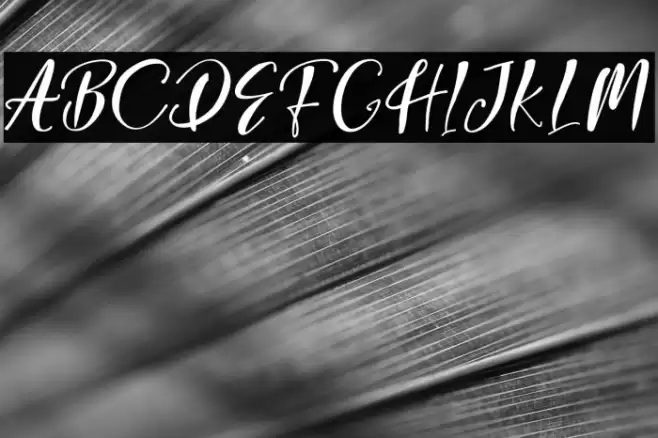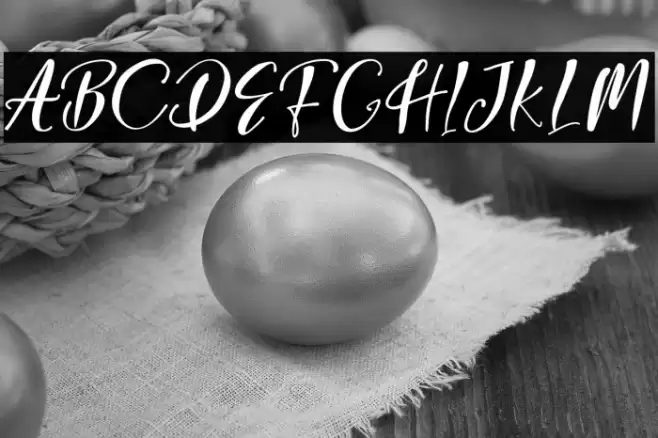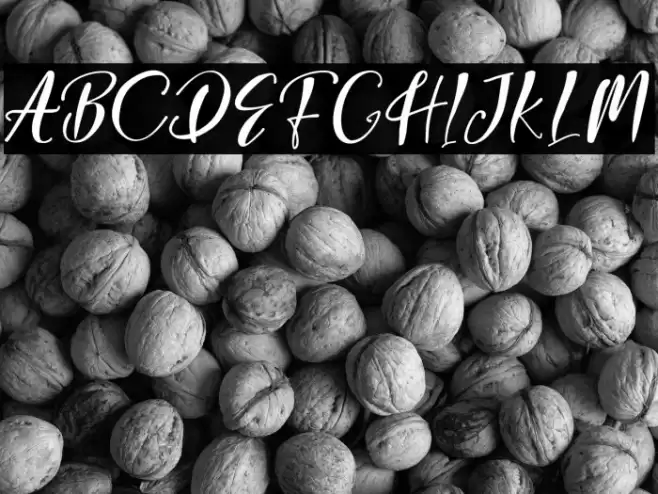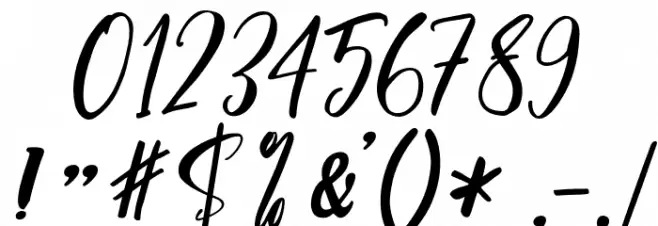
GeorginaScript Font
GeorginaScript Description
This font exudes elegance and fluidity, characterized by its cursive, handwritten style. The letters are interconnected, creating a seamless flow that mimics natural handwriting. The strokes are bold and confident, with a slight slant that adds to its dynamic appearance. The uppercase letters are distinguished by their elaborate loops and swirls, while the lowercase letters maintain a consistent rhythm and balance. Numbers and special characters are crafted with the same attention to detail, ensuring a cohesive look across all elements. This font is perfect for projects that require a personal touch, such as invitations, greeting cards, or branding materials.
A bold, cursive handwritten font with elegant, flowing strokes from Uncategorized fonts.
- Font: GeorginaScript
- Proposed Projects: Ideal for wedding invitations, personal branding, greeting cards, and elegant packaging designs.
- Overall Style: Elegant, Handwritten
- Use Case: Logos, Invitations, Greeting Cards
GeorginaScript UPPERCASE
GeorginaScript LOWERCASE
GeorginaScript OTHER CHARS